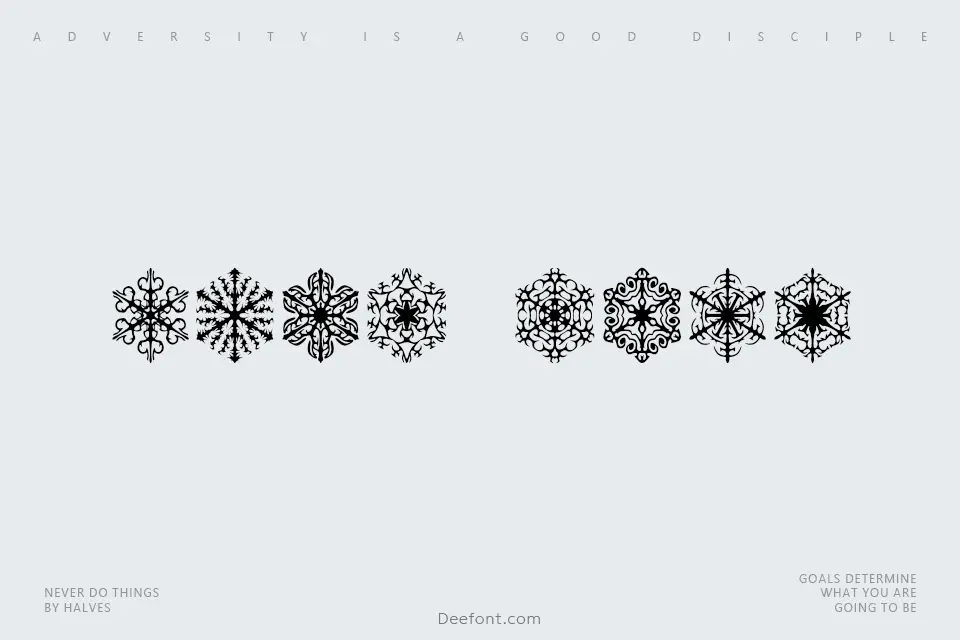
Faux Snow Font
Faux Snow is a delightful decorative dingbat font designed by Brian Kent of Ænigma Fonts. Released in 2002, this festive typeface features charming snowflake and winter-themed ornamental characters perfect for Christmas cards, holiday invitations, and seasonal design projects. Each glyph contains unique snowflake patterns that bring a magical winter wonderland atmosphere to your creative work. With 94 beautifully crafted glyphs, Faux Snow allows designers to add elegant frosty accents and decorative snow elements to their layouts. This font is ideal for creating eye-catching holiday graphics, greeting cards, gift tags, winter event posters, and social media posts that capture the spirit of the season.
Designed by:Brian Kent (Ænigma Fonts)